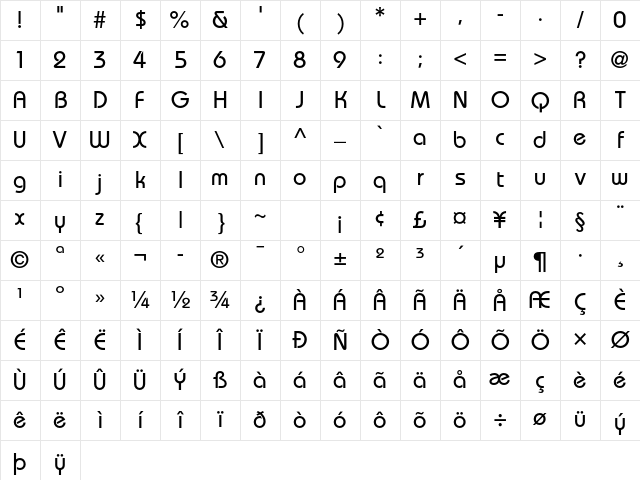
Bauhaus Std Medium
Designer: Ed Benguiat, Vic Caruso
Design Context for Bauhaus Std
Bauhaus Std is a composed and adaptable typeface that performs quietly and consistently across a wide range of design contexts.